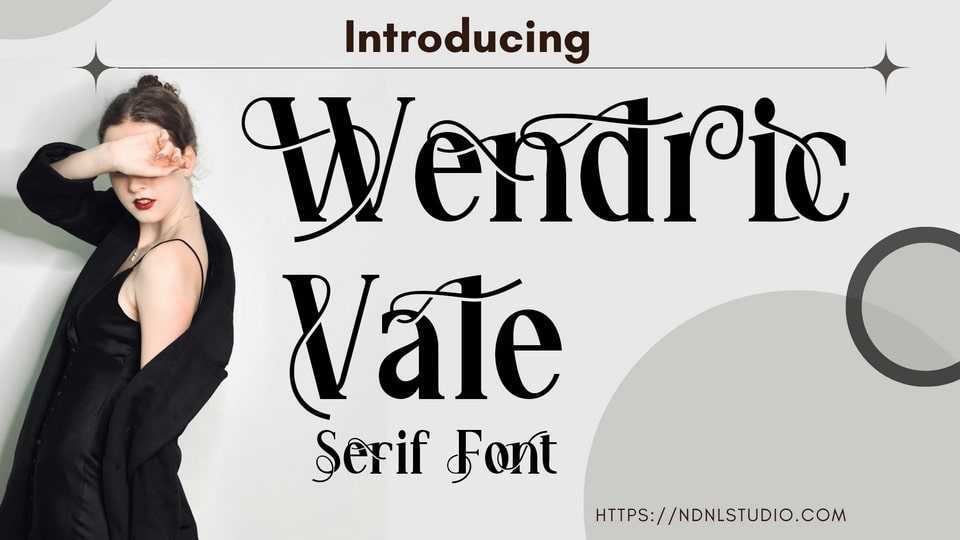
Wendric Vale Font › Fontesk – Fonte Grátis
Wendric Vale Font › Fontesk
Download Wendric Vale font, more than just a serif typeface — it’s a statement of grace and individuality, crafted with a perfect balance between bold structure and flowing elegance.